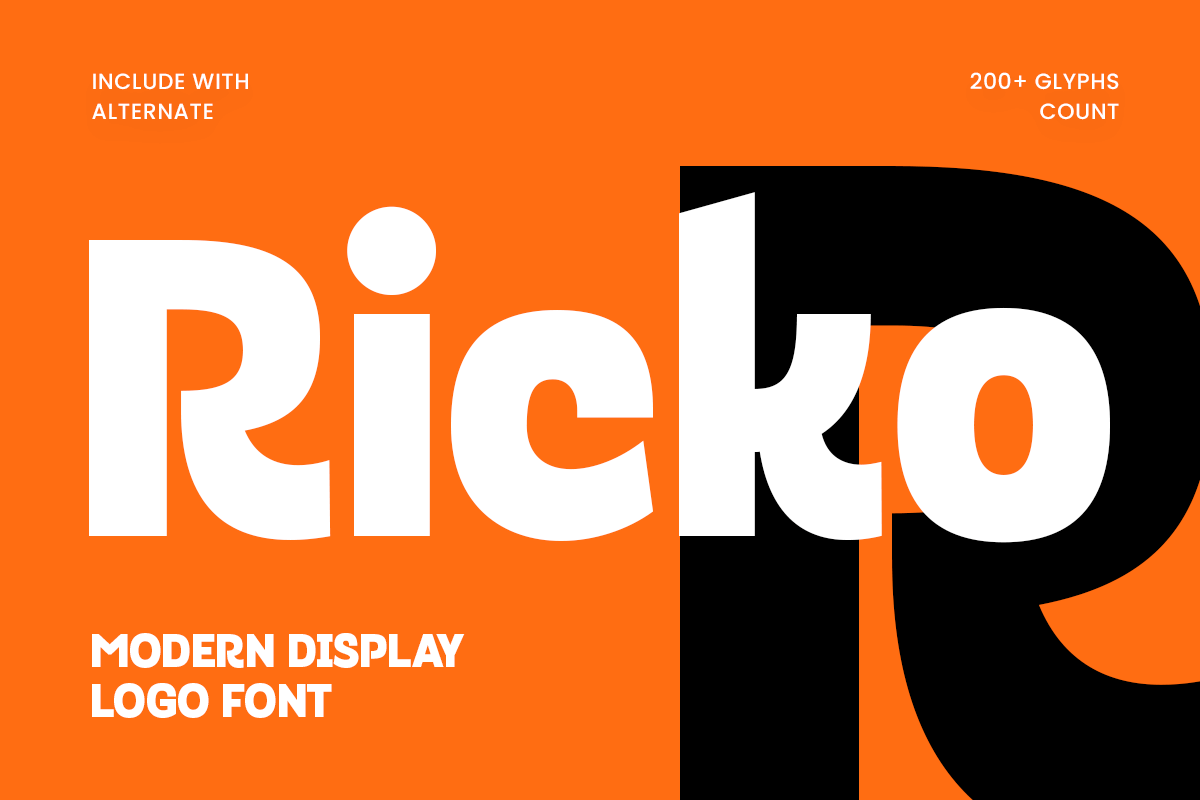
Ricko
-Modern Corporate Logo FontRicko - Modern Corporate Logo Font
Ricko is a modern corporate logo font crafted to deliver a clean, professional, and confident visual tone for business and branding needs. Designed with precise geometry and balanced proportions, it brings modernity and sophistication to any identity system.
Perfect for company logos, presentations, websites, and marketing materials, Ricko reflects reliability and innovation — ideal for industries like finance, technology, consulting, real estate, and creative agencies. Its versatile form ensures readability and consistency across both digital and print formats.
With a focus on simplicity and function, Ricko is the go-to choice for designers who need a polished, professional, and timeless sans serif for modern corporate design.
Ricko – Modern Corporate Logo Font Features
Clean and modern sans serif design for corporate branding
Perfect for logos, websites, presentations, and marketing materials
Balanced and geometric structure for high readability
Ideal for business, tech, and creative industries
OpenType features for enhanced flexibility
Strengthen your brand identity with Ricko – the ultimate modern